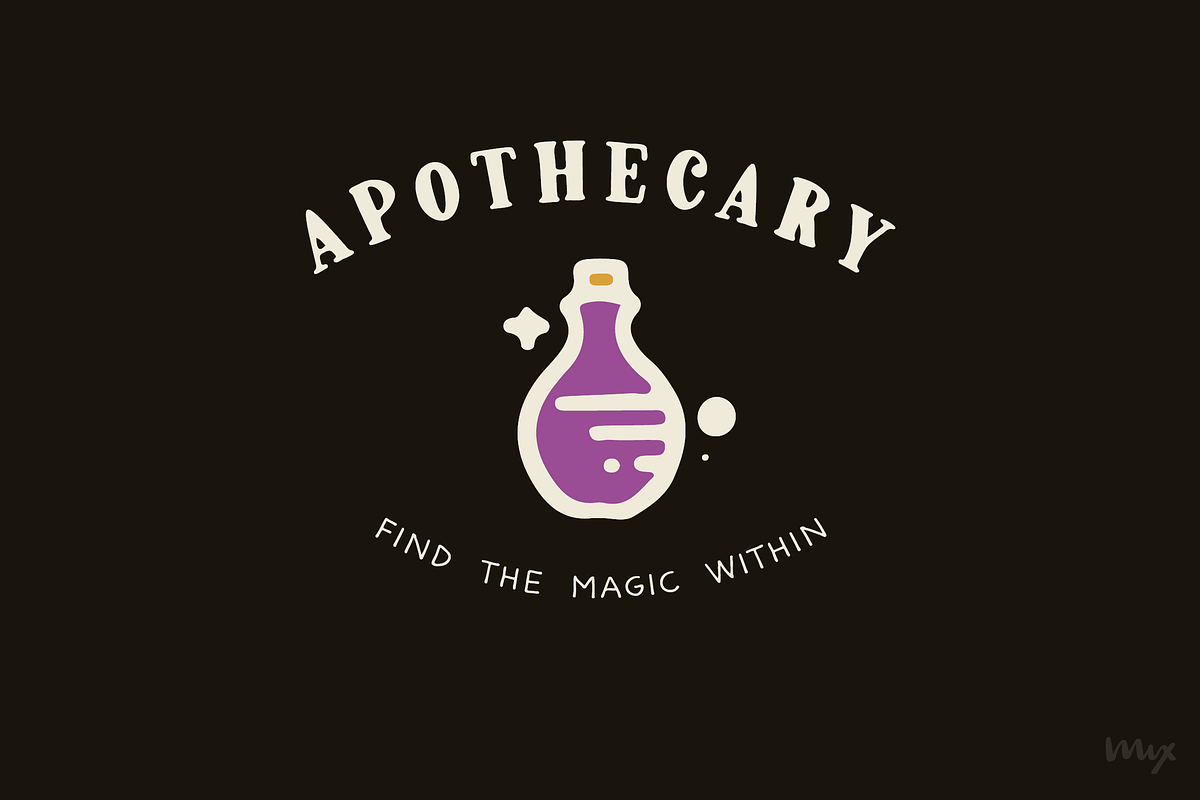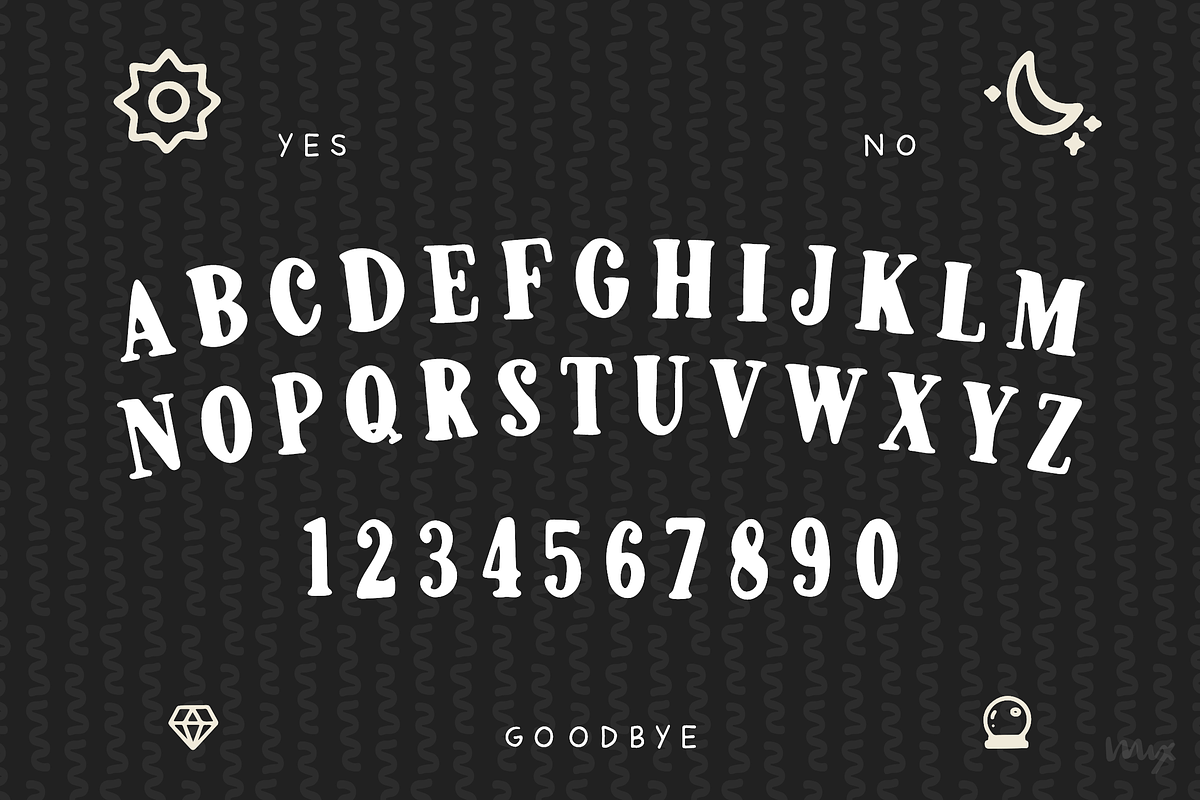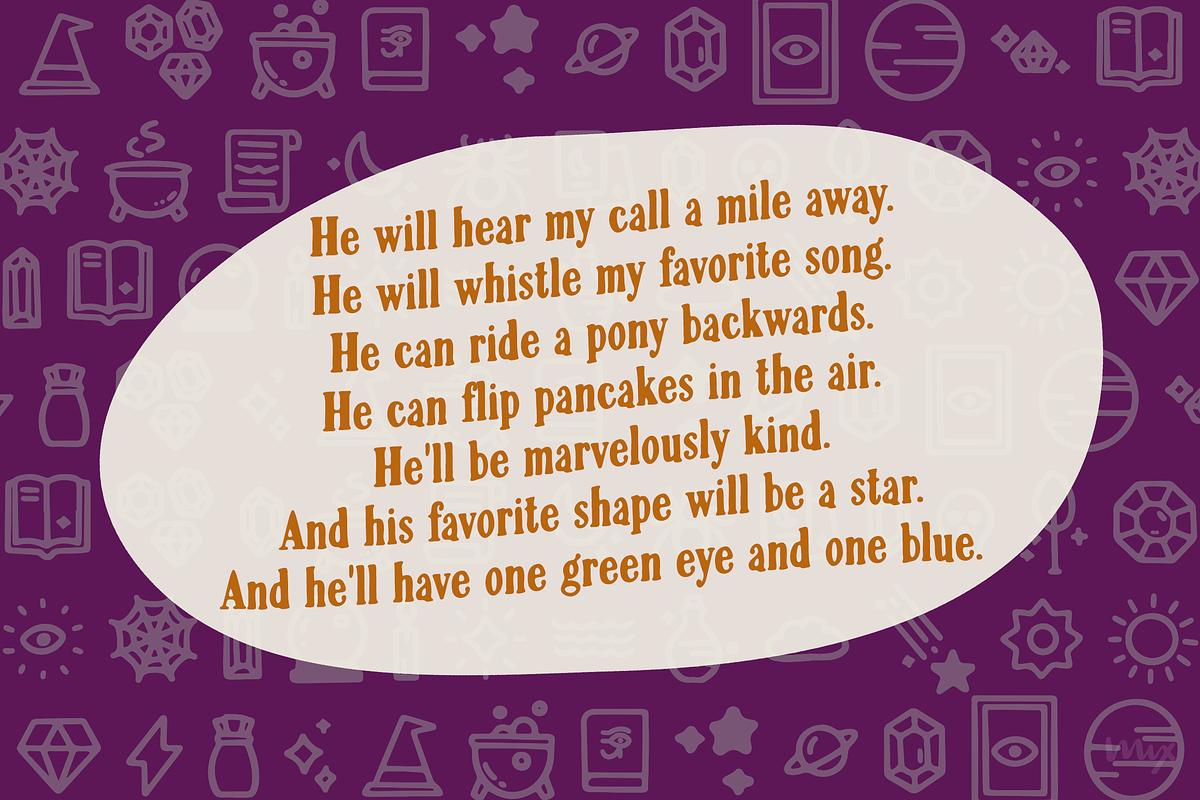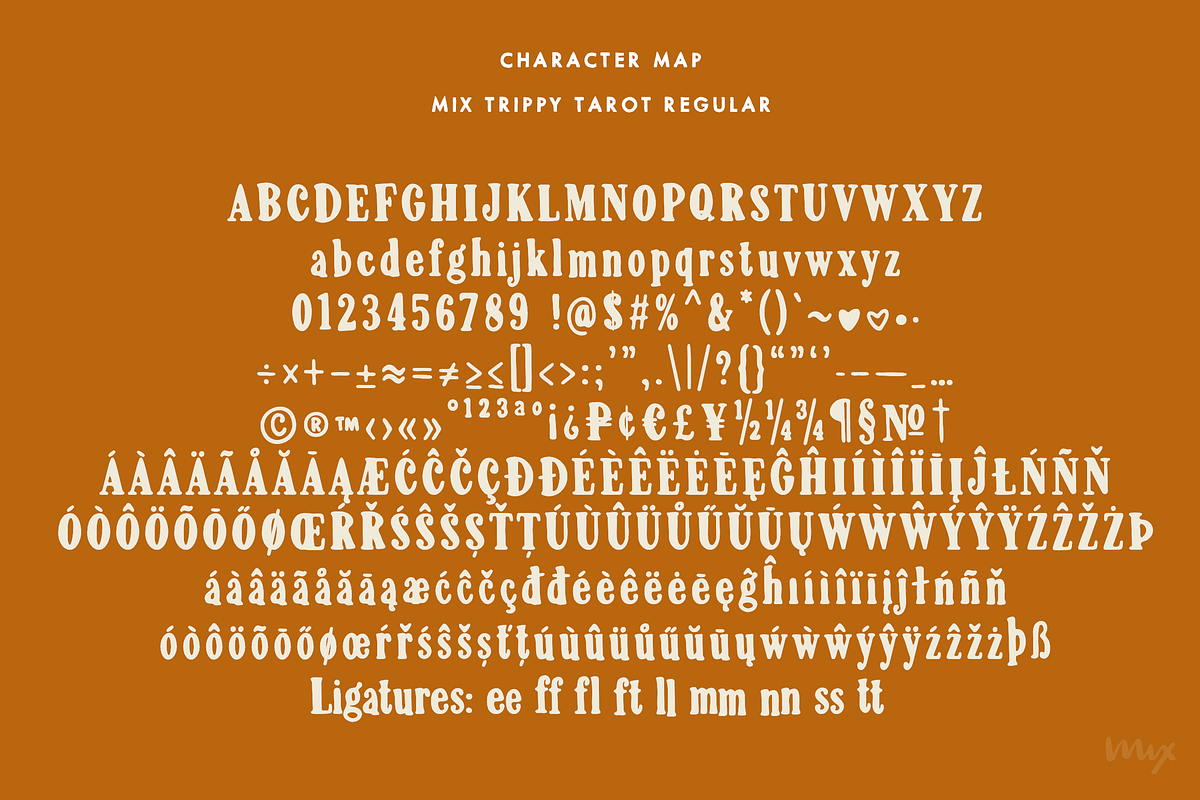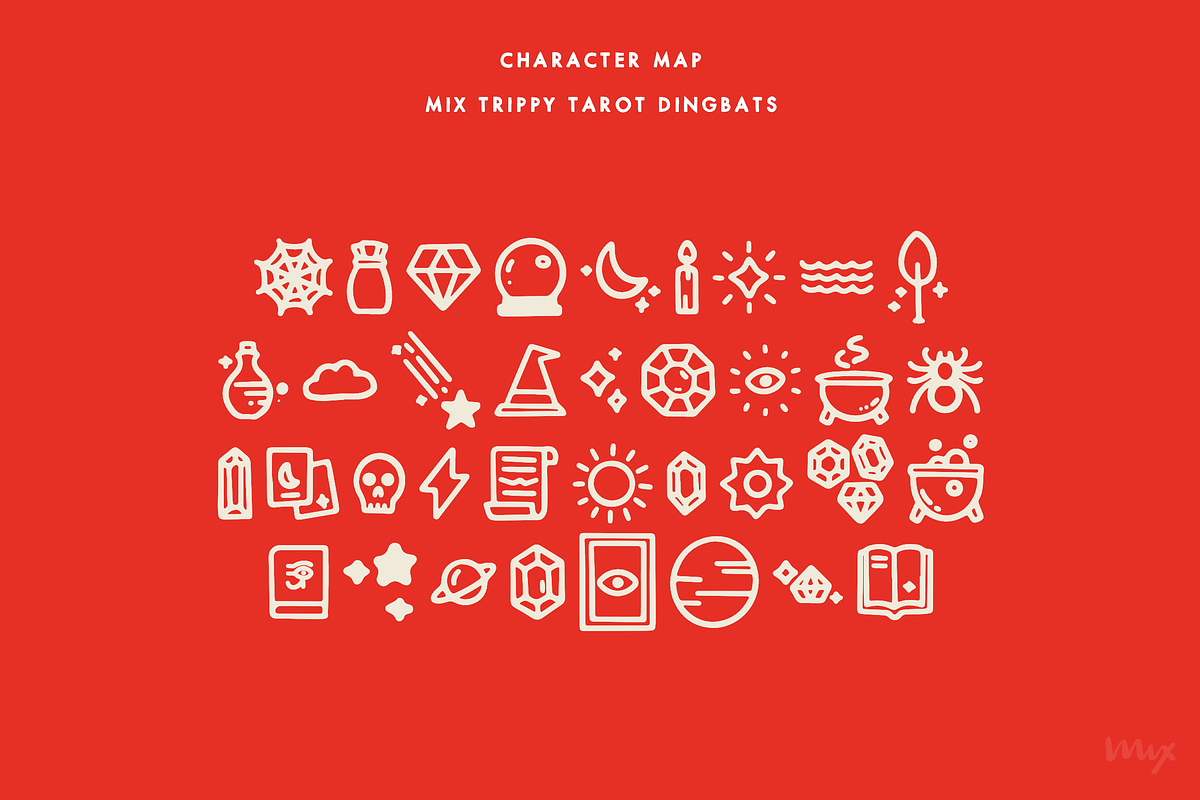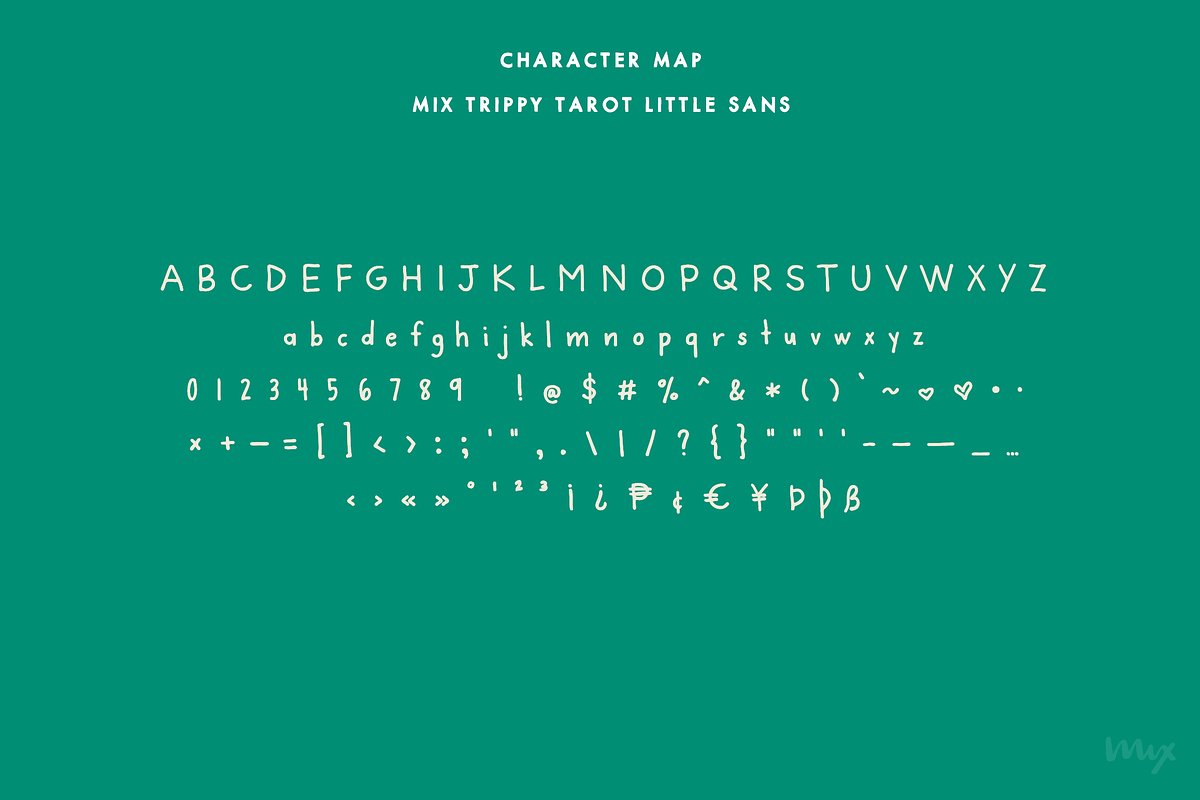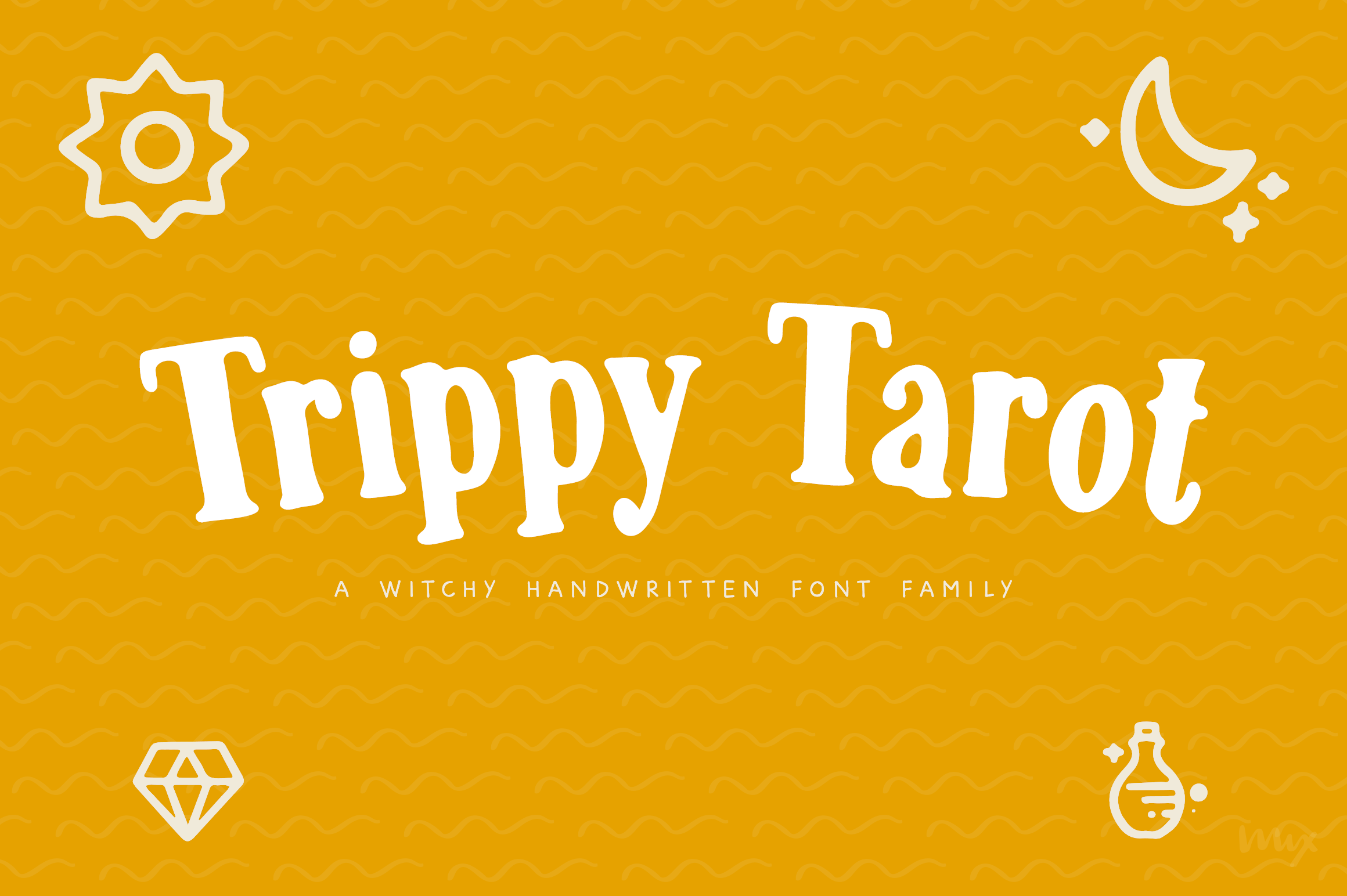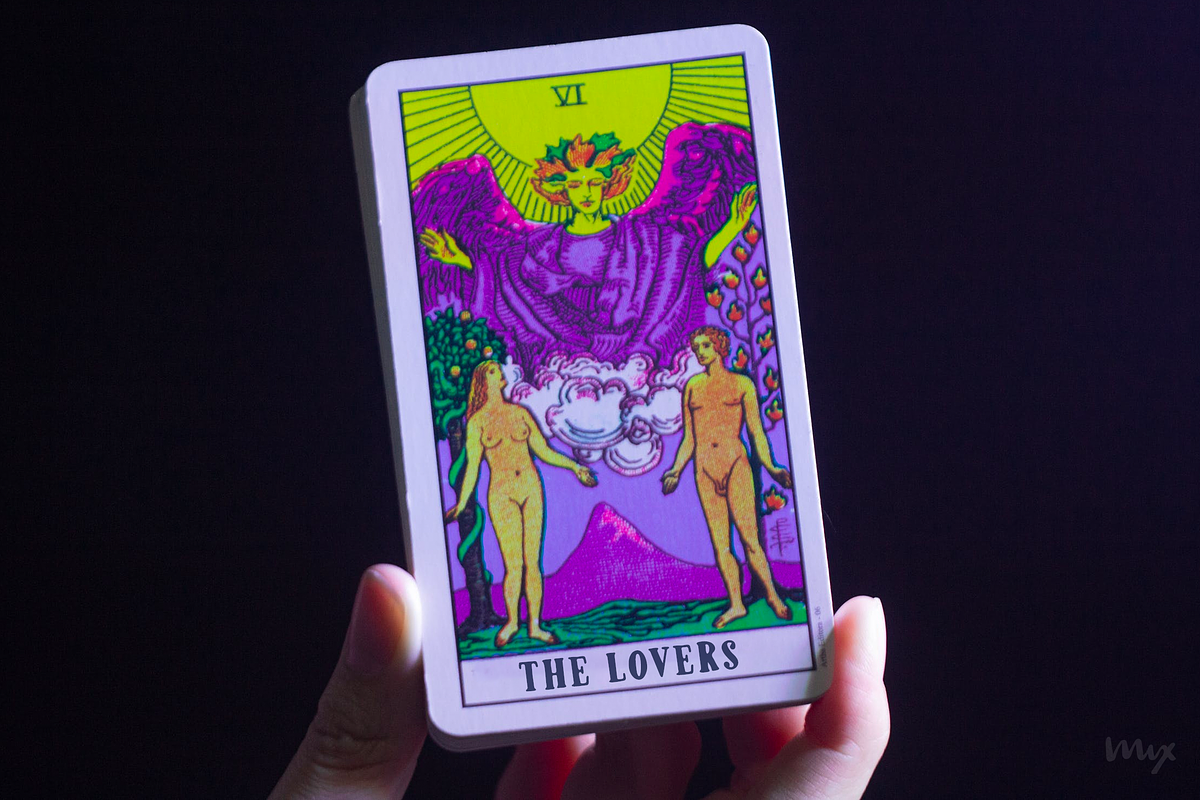
Trippy Tarot (3-Piece Font Family)
Introducing TRIPPY TAROT , a unique and versatile 3-piece font family by Mix Fonts. This witchy font set includes a handwritten serif, sans serif, and a dingbat set, providing the perfect balance of cute and creepy to enhance any of your crafty, magical projects.
The TRIPPY TAROT font family comes with an abundance of glyphs, alternates, and ligatures, giving you endless options for customization. The dingbat set, featuring 36 beautifully detailed doodles, is the perfect companion to the regular or serif TRIPPY TAROT font, or any other font of your choosing.
Add a touch of whimsy and mystery to your astrology, zodiac, mystic, spellbook, or magic projects with TRIPPY TAROT. This font family is a must-have for any witch, wizard, or creative looking to add some otherworldly charm to their designs.
Ligatures: ee ff fl ft ll mm nn ss tt
Alternate: Q